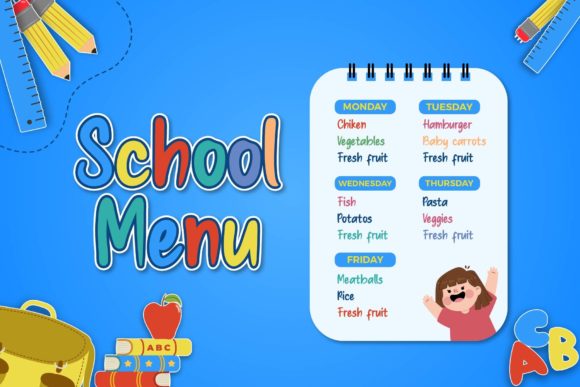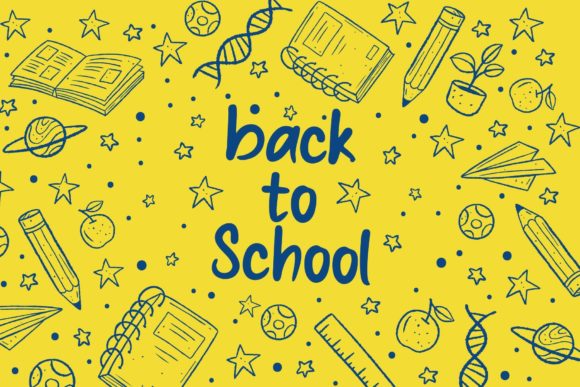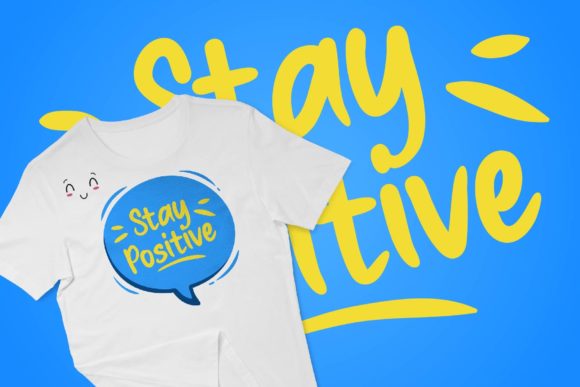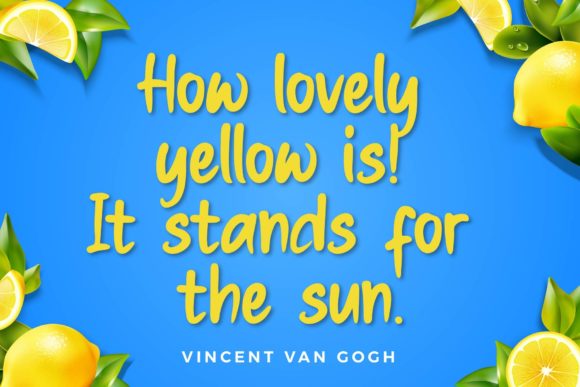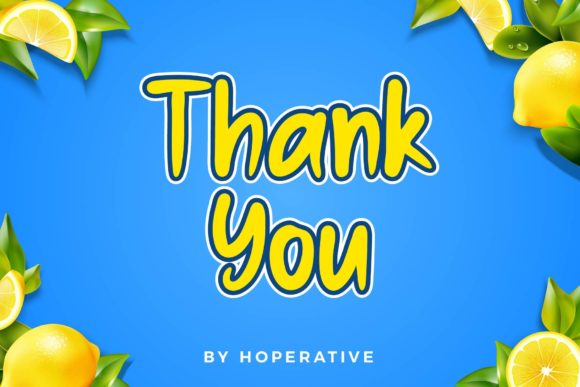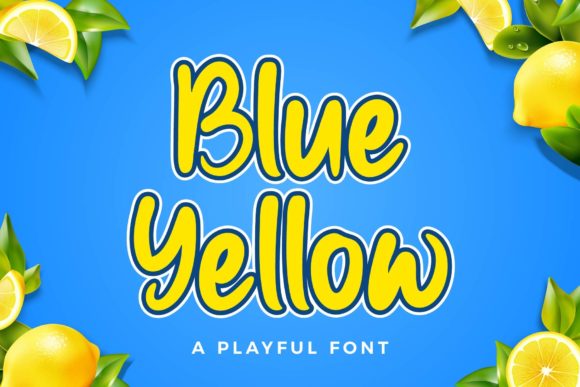
Introducing Blue Yellow Font: The Perfect Addition to Your Design Arsenal
Are you on the hunt for a font that can add a touch of whimsy and playfulness to your designs? Look no further than Blue Yellow Font! This delightful display font is sure to capture the hearts of designers and crafters alike with its sweet and delicate swashes. In this article, we’ll dive into the world of Blue Yellow Font, exploring its features, uses, and benefits, as well as provide tips on how to make the most of this charming font.
What is Blue Yellow Font?
Blue Yellow Font is a unique and eye-catching display font that boasts a cute and jolly appearance. Its distinctive swashes add a touch of elegance and sophistication, making it perfect for a wide range of design projects. Whether you’re working on letterheads, titles, stationery, or any other crafty idea, Blue Yellow Font is sure to bring a smile to your face and a dash of personality to your designs.
Key Features of Blue Yellow Font
- Cute and Jolly Appearance: Blue Yellow Font features a playful and cheerful design that’s sure to grab attention.
- Sweet and Delicate Swashes: The font’s swashes add a touch of whimsy and elegance, making it perfect for designs that require a bit of flair.
- Display Font: Blue Yellow Font is specifically designed as a display font, making it ideal for headlines, titles, and other attention-grabbing elements.
- Crafty and Versatile: This font is perfect for a wide range of design projects, from letterheads and stationery to posters and social media graphics.
Uses for Blue Yellow Font
Blue Yellow Font is an incredibly versatile font that can be used in a variety of design projects, including:
- Letterheads and Stationery: Add a touch of personality to your business correspondence with Blue Yellow Font.
- Titles and Headlines: Use Blue Yellow Font to create eye-catching titles and headlines for posters, flyers, and social media graphics.
- Branding and Packaging: This font is perfect for creating unique and memorable brand identities, including logos, labels, and packaging.
- Invitations and Announcements: Blue Yellow Font is ideal for creating playful and festive invitations and announcements.
Benefits of Using Blue Yellow Font
So why choose Blue Yellow Font for your design projects? Here are just a few benefits:
- Unique and Eye-Catching: Blue Yellow Font is sure to grab attention and set your designs apart from the crowd.
- Easy to Read: Despite its playful appearance, Blue Yellow Font is easy to read and understand, making it perfect for designs that require a bit of flair.
- Customizable: With its delicate swashes and versatile design, Blue Yellow Font can be easily customized to fit your brand’s unique style.
Tips for Using Blue Yellow Font
To get the most out of Blue Yellow Font, here are a few tips to keep in mind:
- Use it Sparingly: Blue Yellow Font is a display font, so use it sparingly to create emphasis and grab attention.
- Pair it with Other Fonts: Experiment with pairing Blue Yellow Font with other fonts to create a unique and visually appealing design.
- Play with Swashes: Don’t be afraid to get creative with Blue Yellow Font’s swashes – they can add a touch of whimsy and personality to your designs.
| Font Name | Blue Yellow Font |
| Author | Hoperative Design |